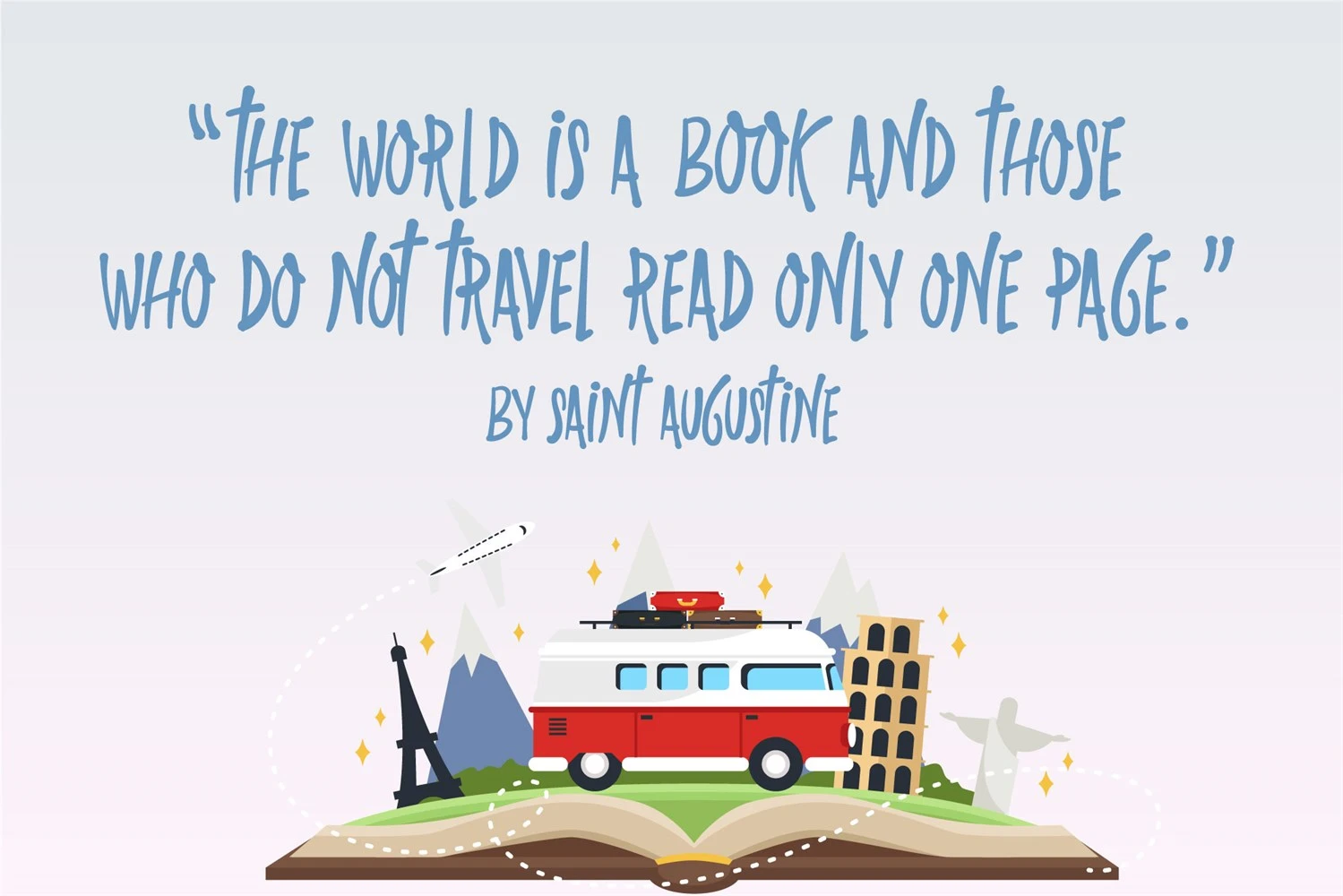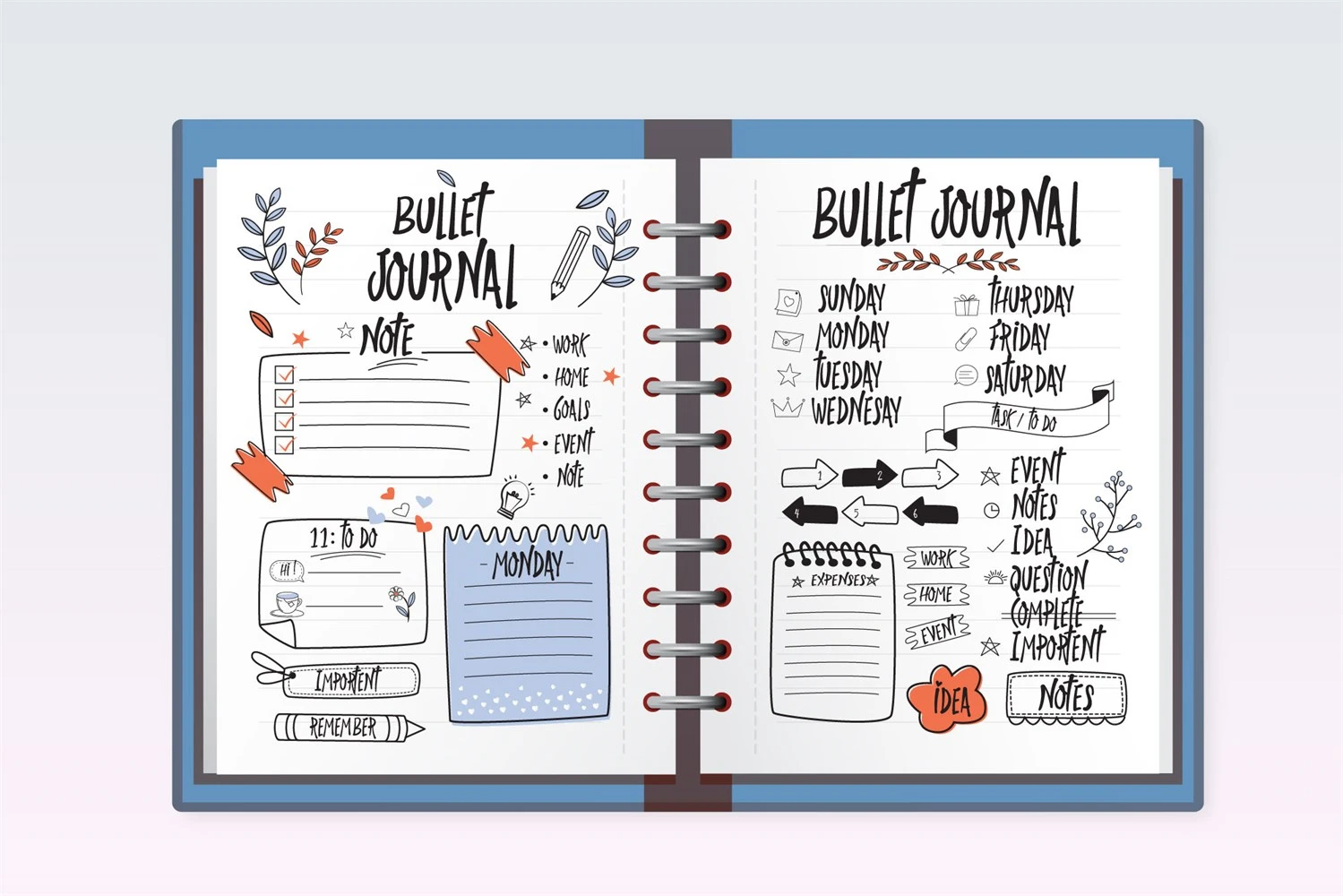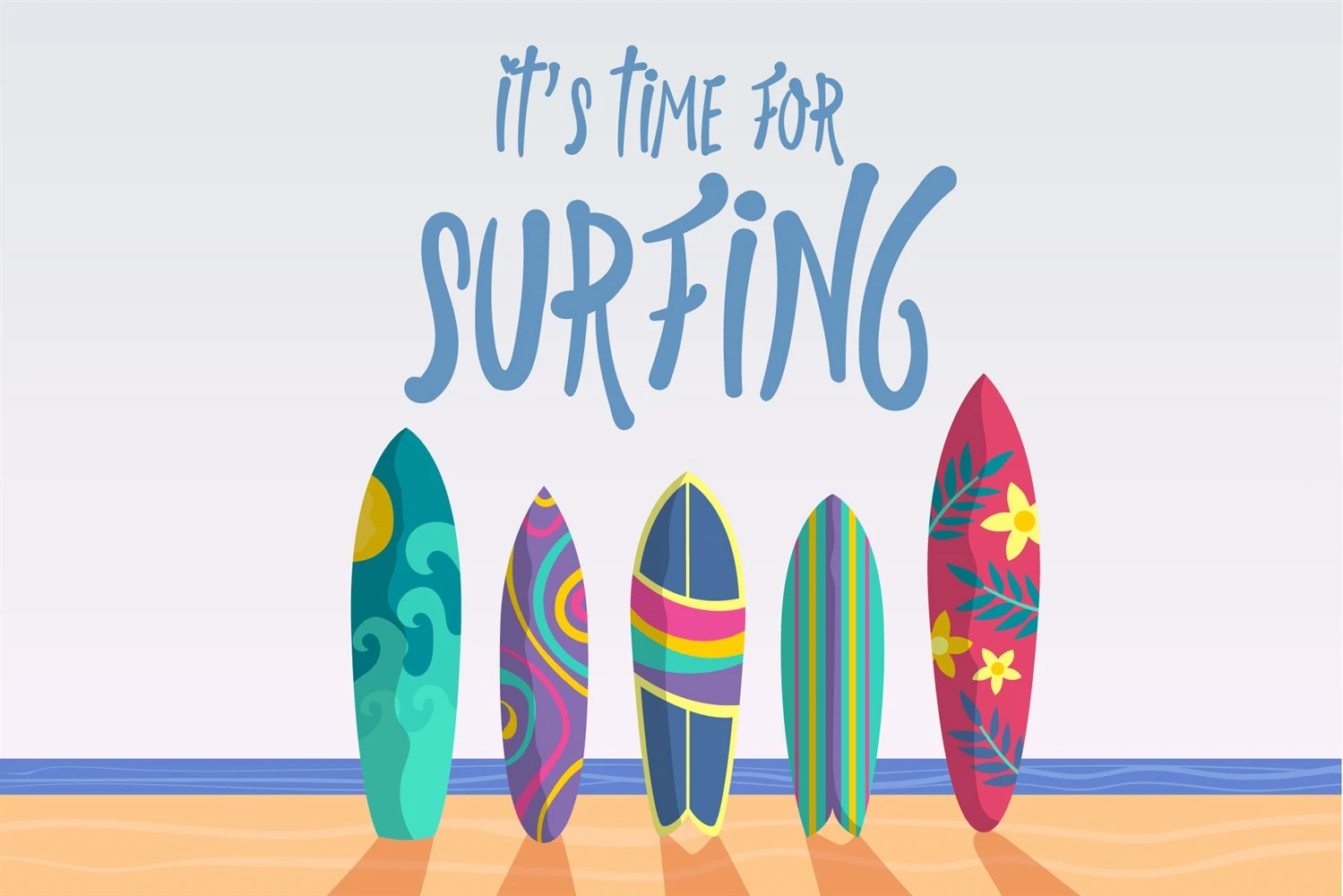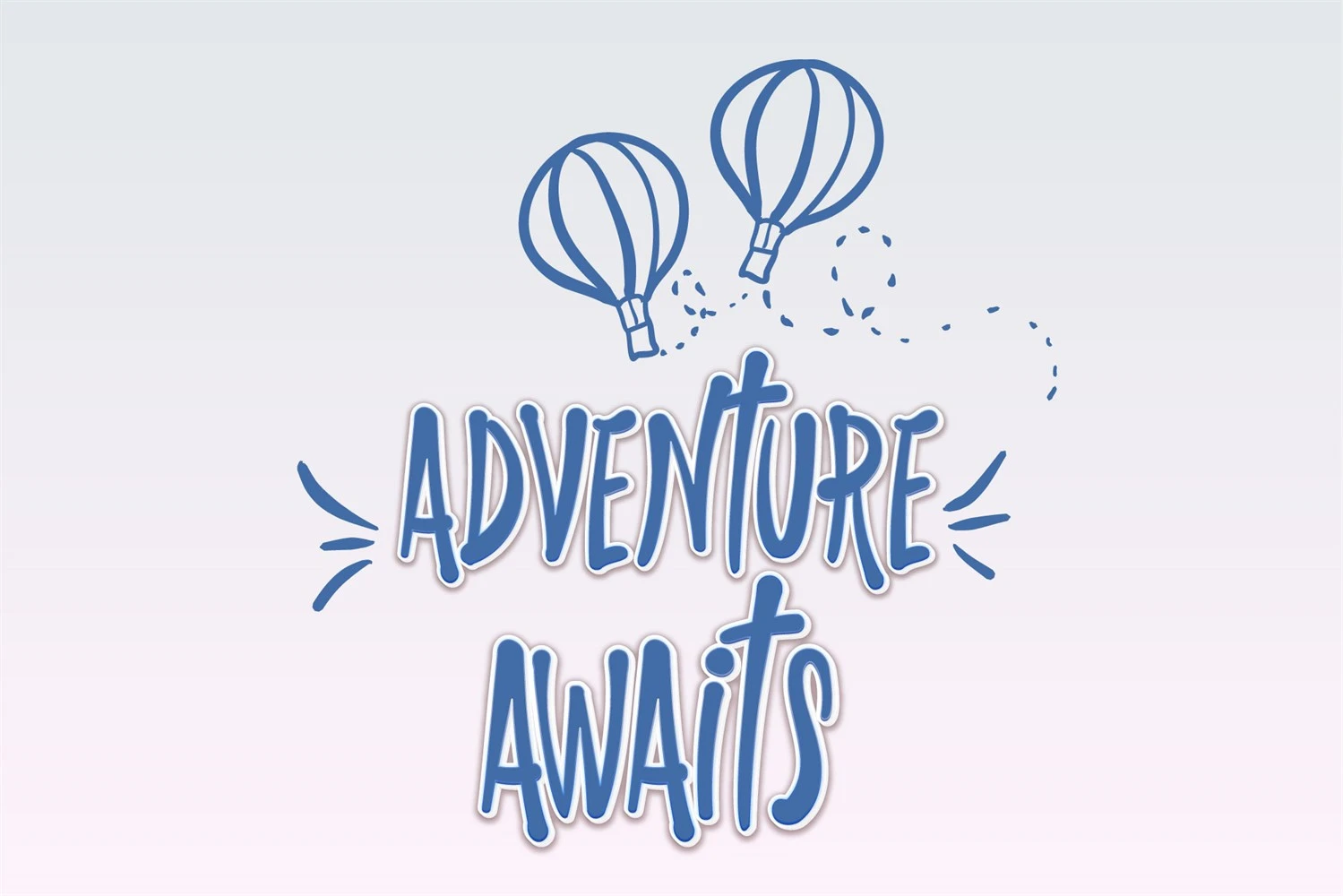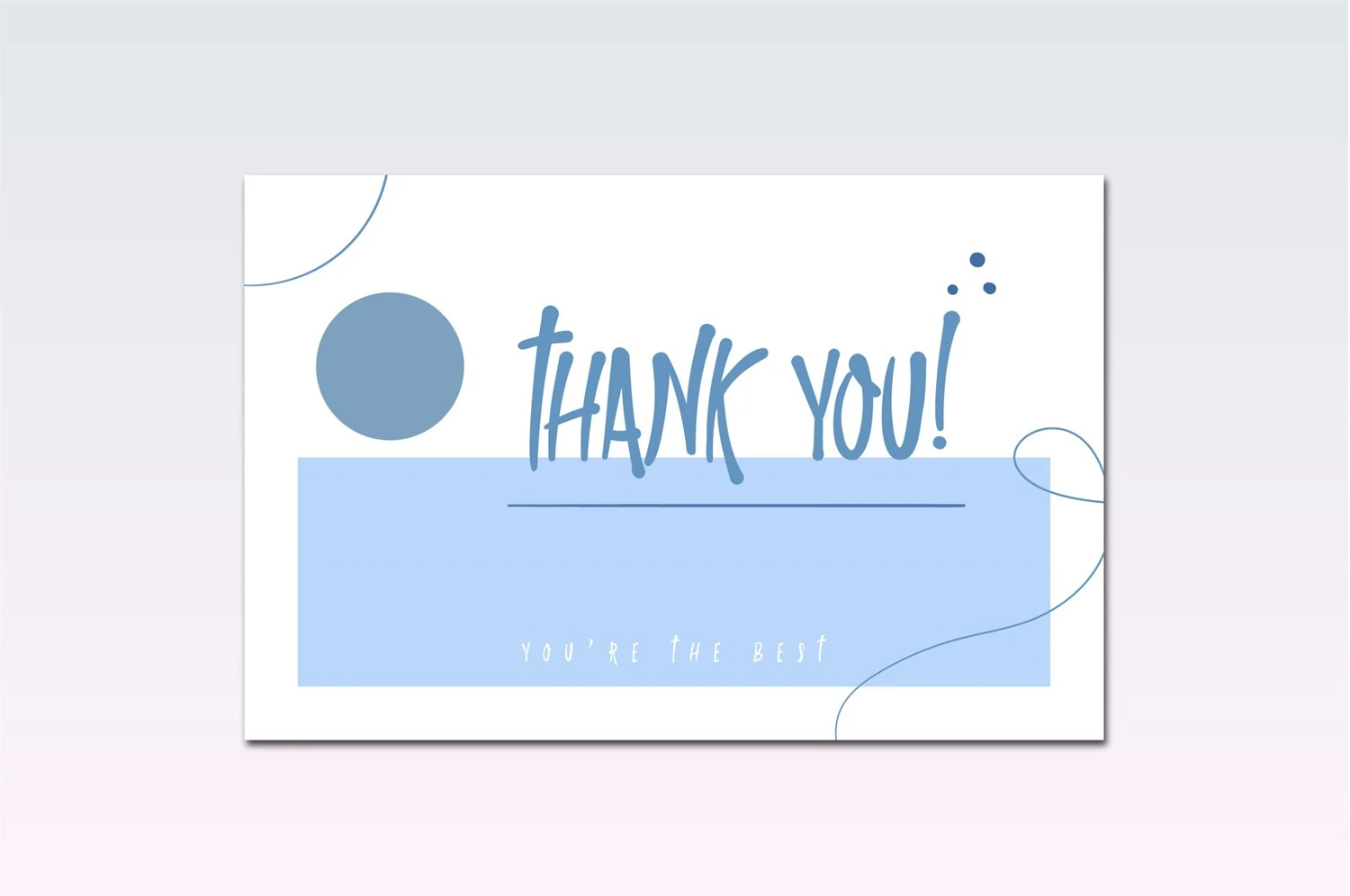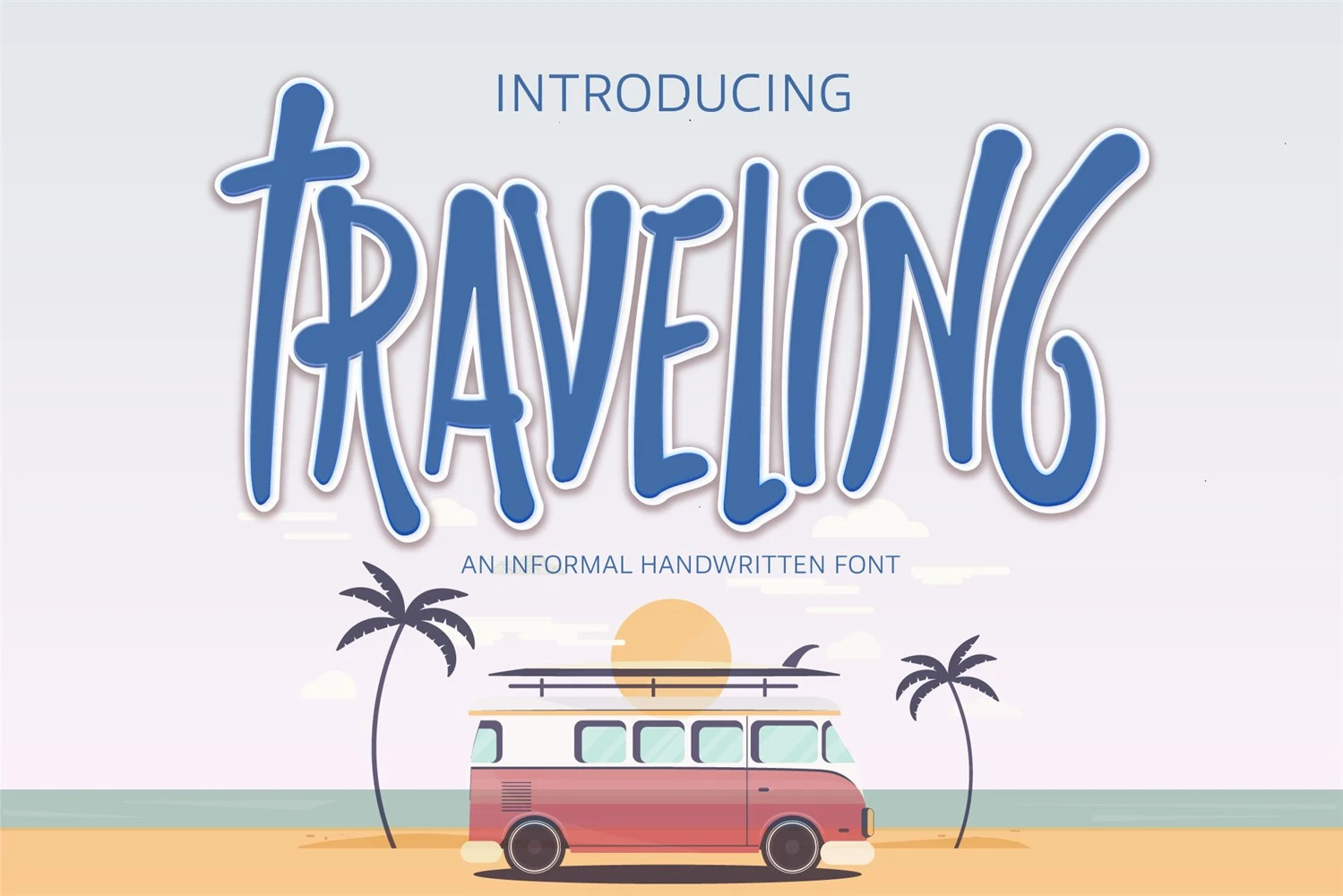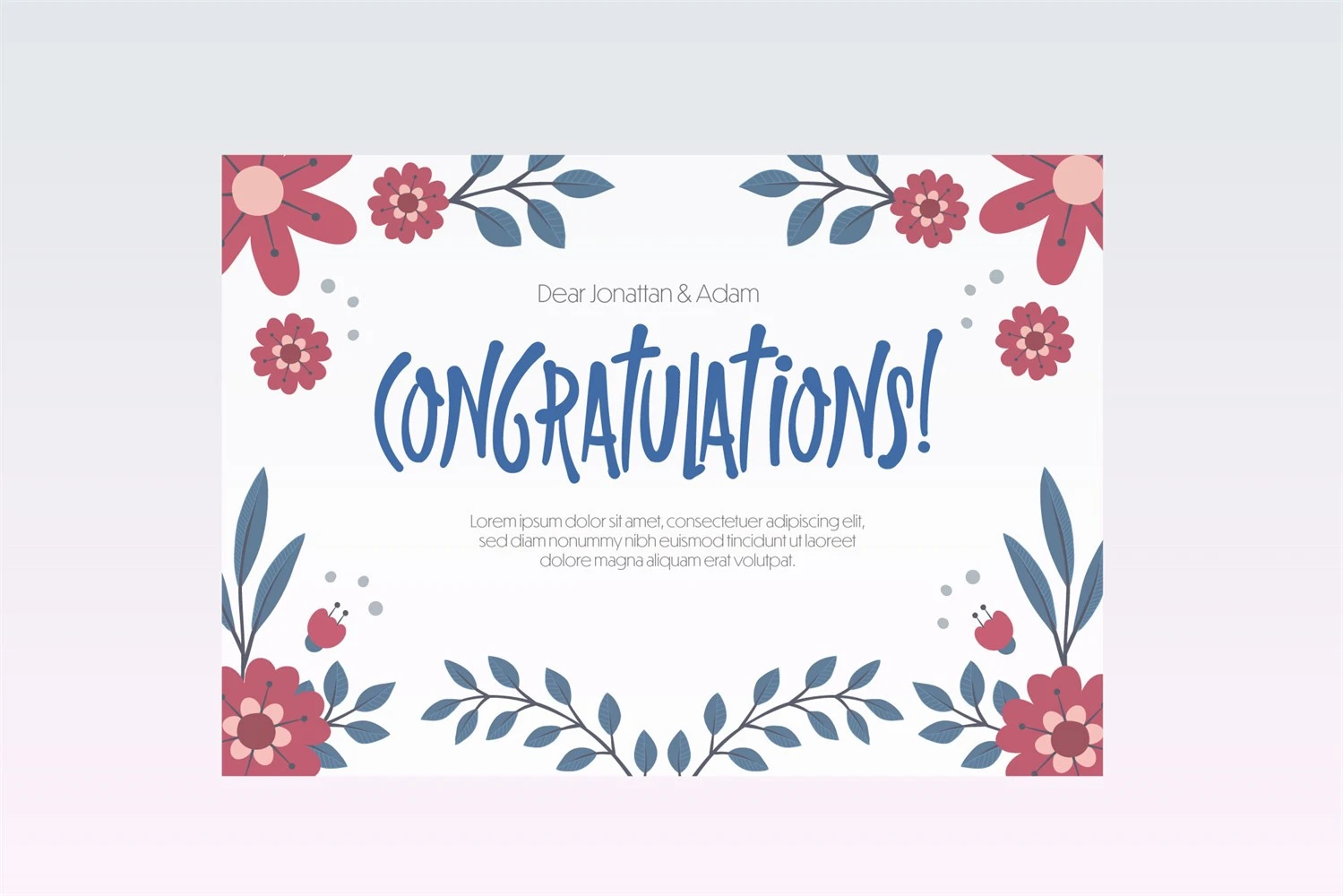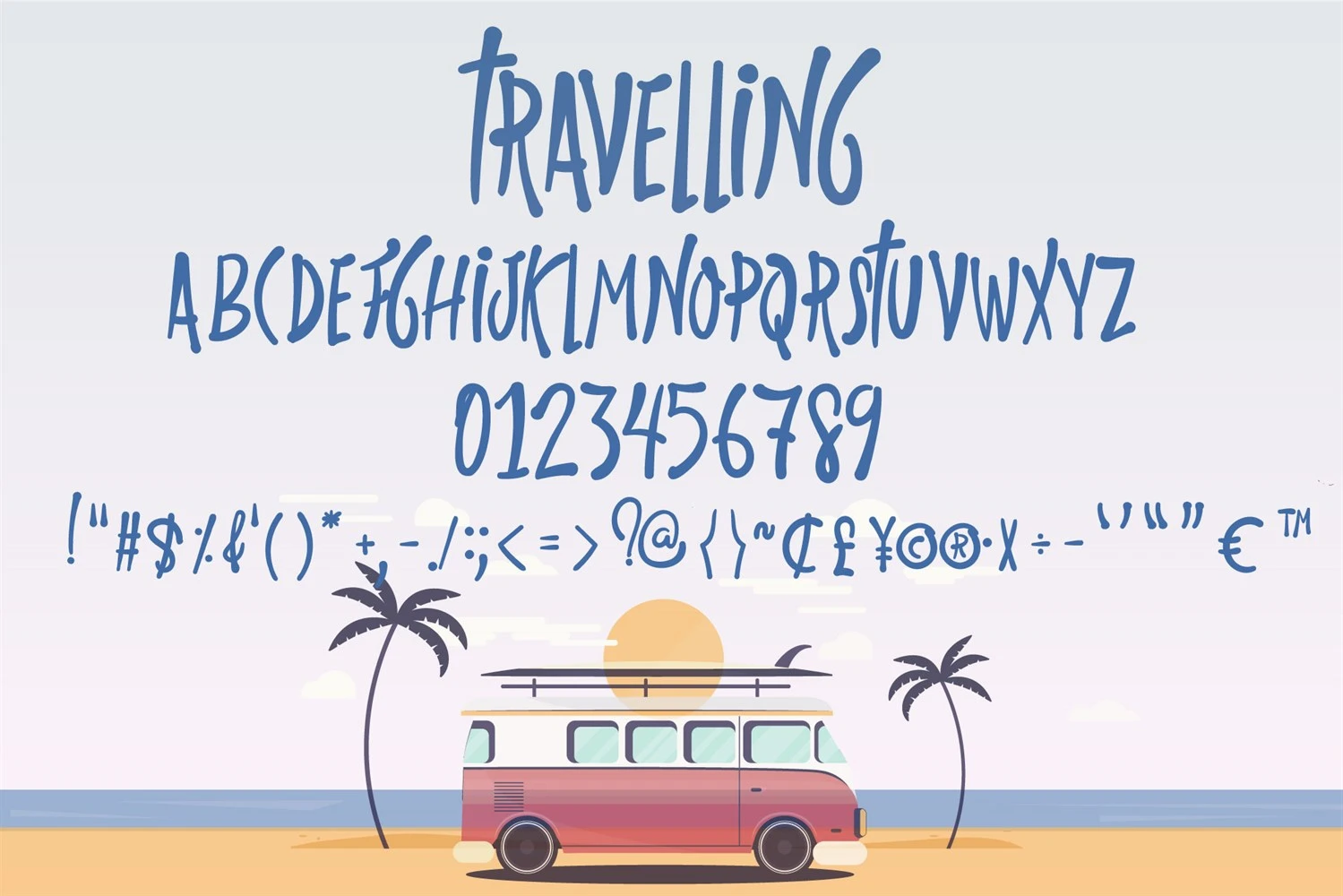
Introducing Travelling Font, a delightful and charming handwritten font that adds a touch of whimsy to any design. With its playful and friendly style, this font is perfect for creating eye-catching and unique projects. Whether you're working on invitations, greeting cards, logos, or social media graphics, Travelling Font will bring a joyful and lighthearted vibe to your creations. Embrace the casual yet stylish nature of this font and watch your designs come to life with its distinct personality.